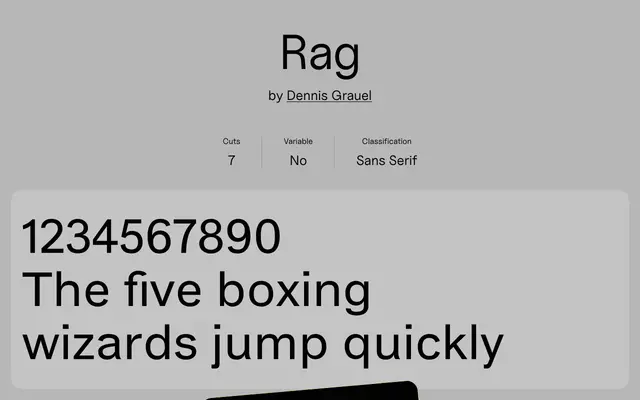
Rag
Rag is a sans-serif typeface by Dennis Grauel offered in seven cuts with no variable font version. Released under SIL Open Font License 1.1, it is free for both commercial and personal use, with redistribution and modification permitted under the licence terms. The family sits in the grotesque tradition without condensed or italic companions.
Listed under Sans Serif by the foundry; the name and minimal description suggest a grotesque or humanist sans without variable axis support.